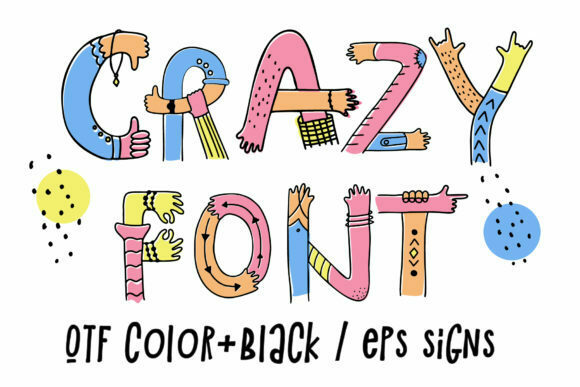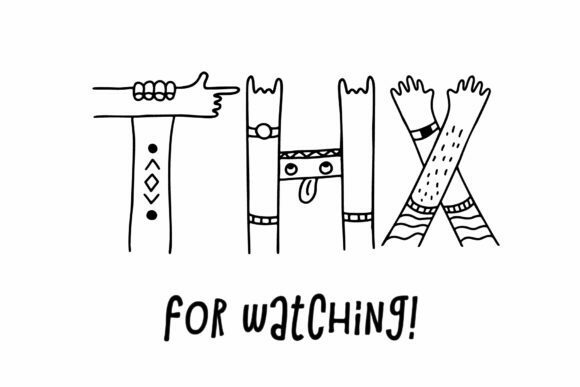
Hands Up Crazy Font
Introducing the Absent-Minded Doodles font, a creative, wacky, and unique typeface that draws inspiration from doodles and comics. This font is designed to bring a touch of whimsy and playfulness to your designs, taking full advantage of the latest advancements in OpenType SVG technology.
The Absent-Minded Doodles font showcases the charm and spontaneity of absent-minded scribbles, making it perfect for adding a fun and quirky element to your creative projects. Whether you’re designing posters, comics, invitations, or any other artistic endeavor, this font will inject a sense of creativity and uniqueness into your work.
With its color font capabilities (Opentype-SVG), the Absent-Minded Doodles font offers a vibrant and dynamic range of colors, bringing your designs to life with eye-catching hues. This font is compatible with popular design software such as Photoshop, Illustrator, Silhouette, and Inkscape, allowing you to fully utilize its features and create stunning visuals.
Additionally, the Absent-Minded Doodles font is available in a regular, black version, providing you with flexibility in choosing the style that best suits your project. Whether you prefer the colorful and playful variant or the bold and striking black version, this font offers versatility to cater to your design needs.
Explore the world of Absent-Minded Doodles and let your imagination run wild. Embrace the whimsical nature of this font and watch as your designs come to life with a touch of playful spontaneity. Whether you’re aiming for a lighthearted comic strip or a captivating poster, the Absent-Minded Doodles font will help you achieve that distinctive and creative look.
Add a dash of creativity and quirkiness to your designs with the Absent-Minded Doodles font. Let it be the perfect companion for your next project and bring an element of fun and spontaneity to your artwork. Unleash your creativity and enjoy the endless possibilities that this unique font has to offer.